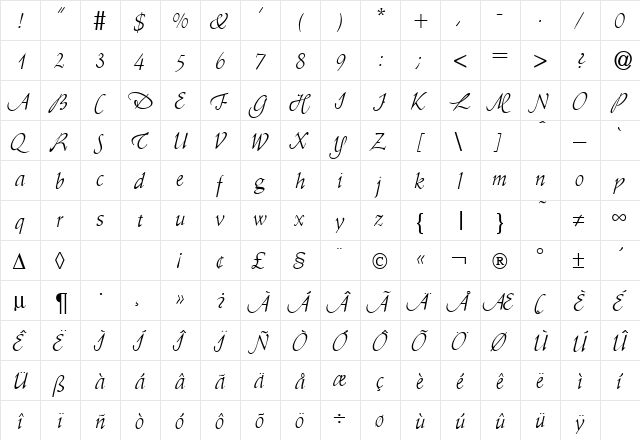
AmaryllisSwash DB Regular
Design Context for AmaryllisSwash DB Typeface
AmaryllisSwash DB brings a calligraphic fluidity to the page — its connecting strokes and expressive curves give it an unmistakably human quality.
Font Pairing: Combine AmaryllisSwash DB with a simple geometric sans for maximum contrast — the tension between flowing curves and clean structure is a classic typographic pairing.
Pro Tip: Pair AmaryllisSwash DB with a clean sans-serif for supporting text. The contrast between fluid script and geometric structure creates an elegant typographic hierarchy.